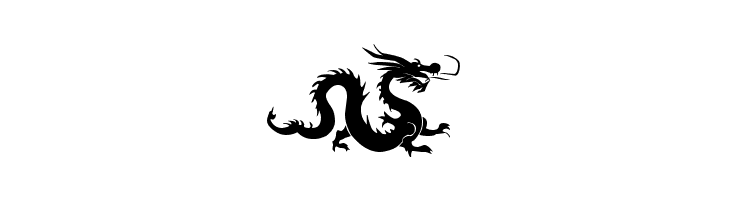
A decorative font with intricate dragon motifs forming each character.
Fantasy-themed clipart illustrations form each character.
A bold, decorative font with a dragon scale pattern, perfect for fantasy themes.
A decorative font with intricate dragon motifs replacing standard characters.
A diverse set of ornamental symbols with bold outlines and intricate details.
A decorative and intricate font with fantasy-themed embellishments.